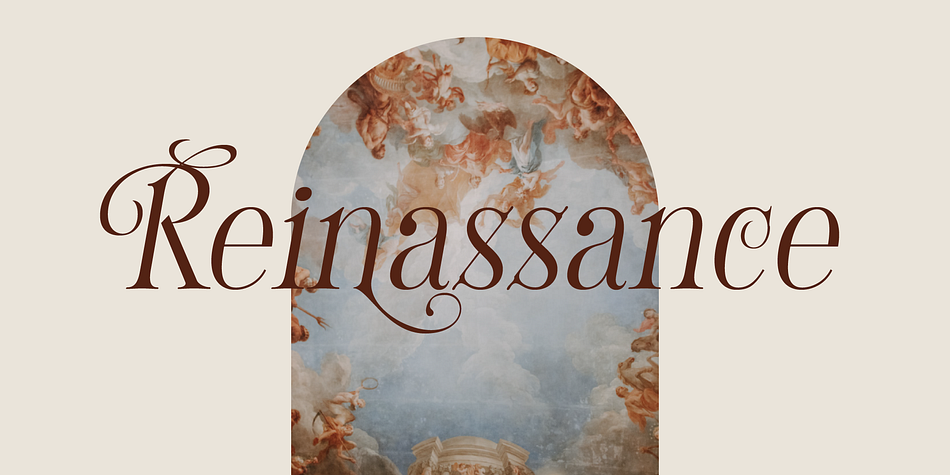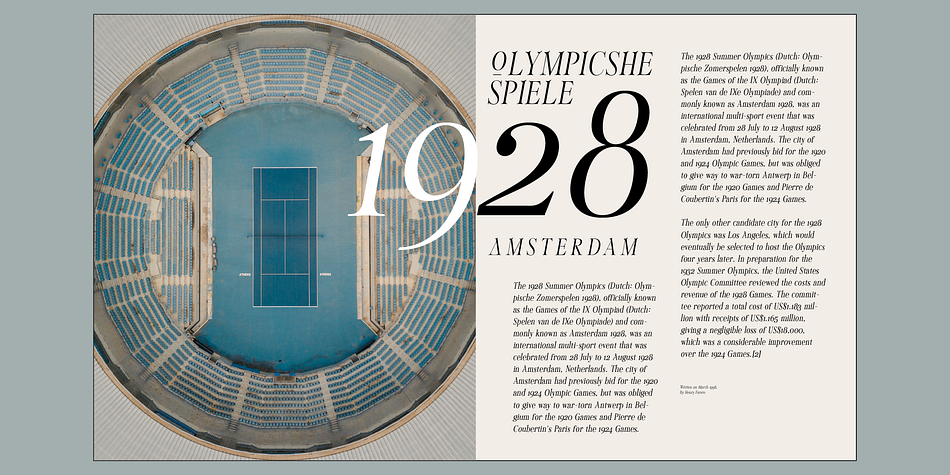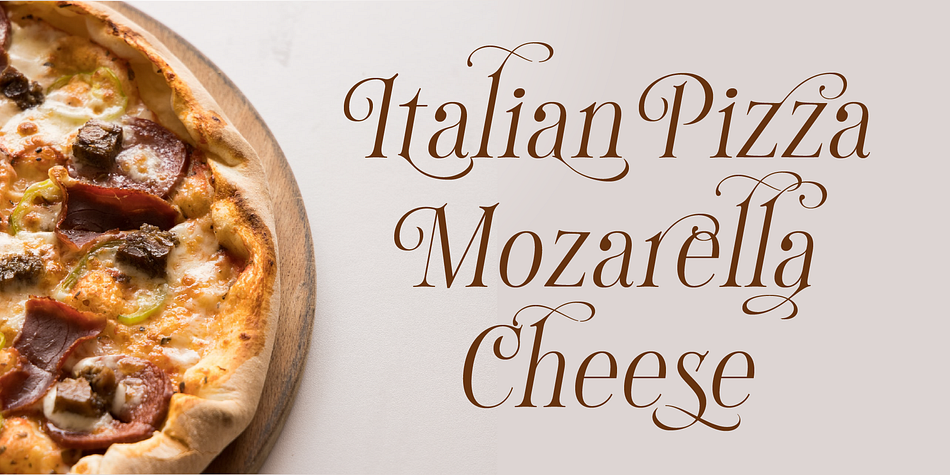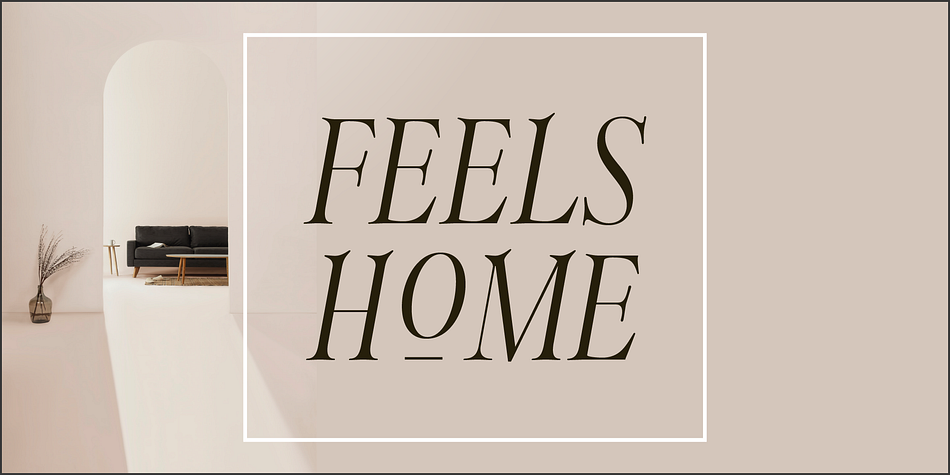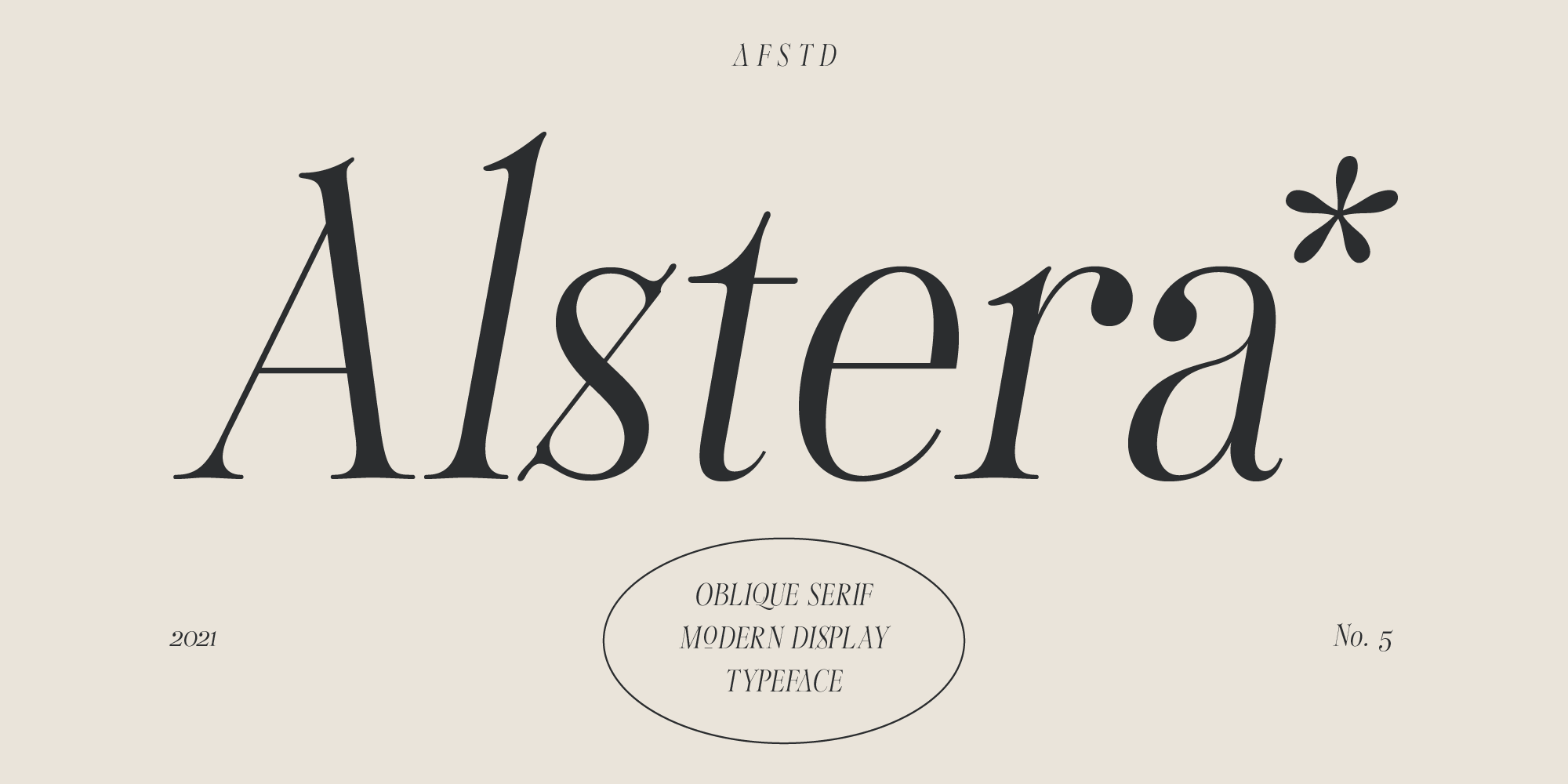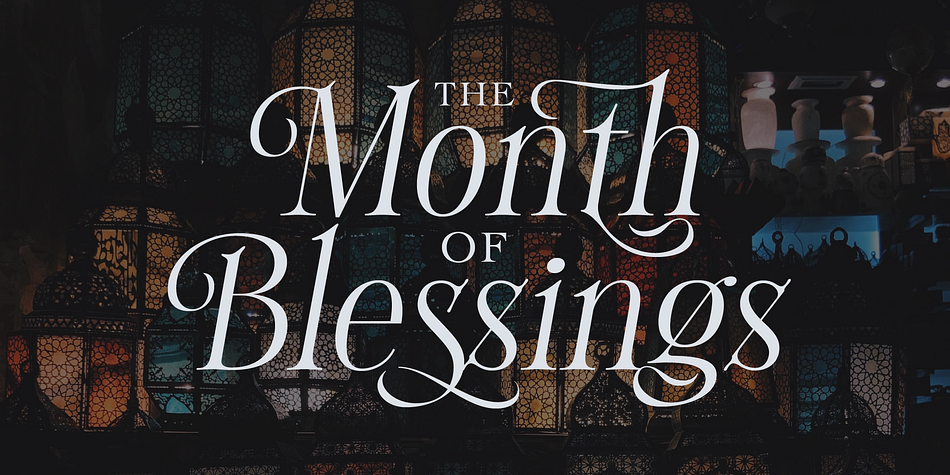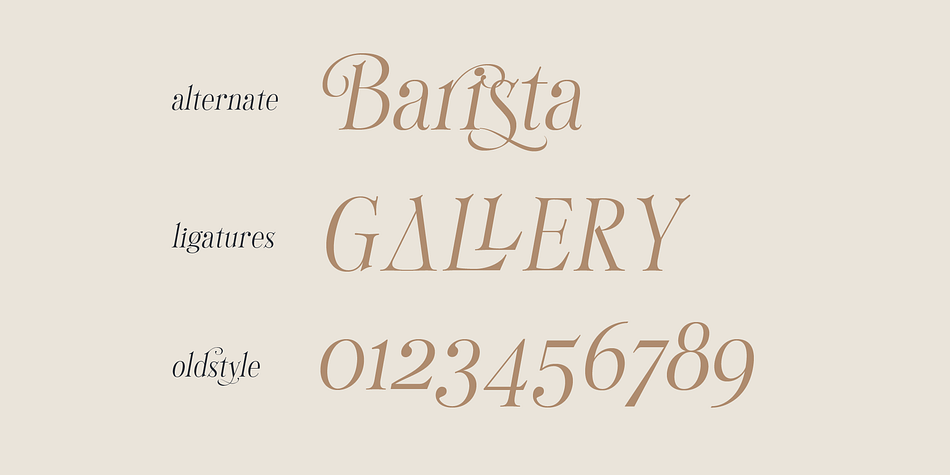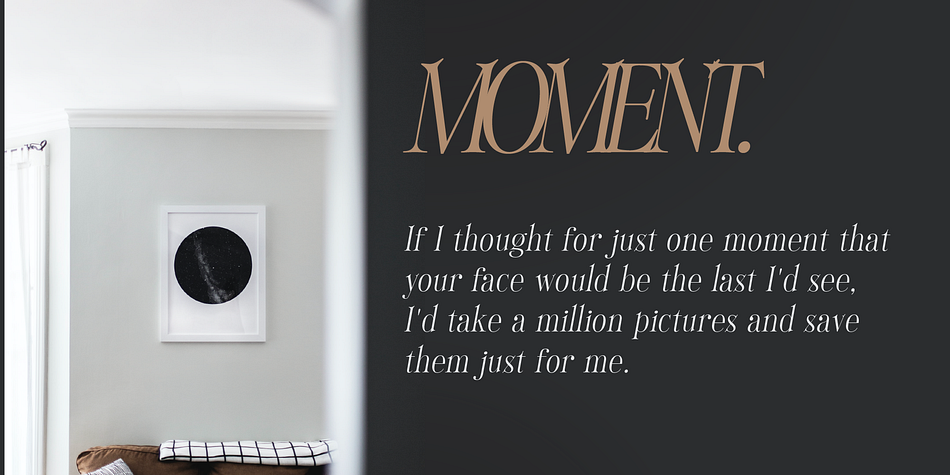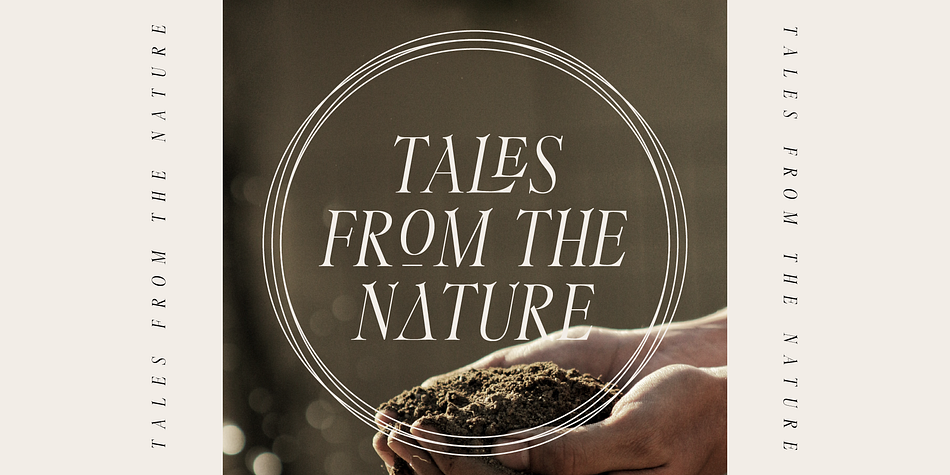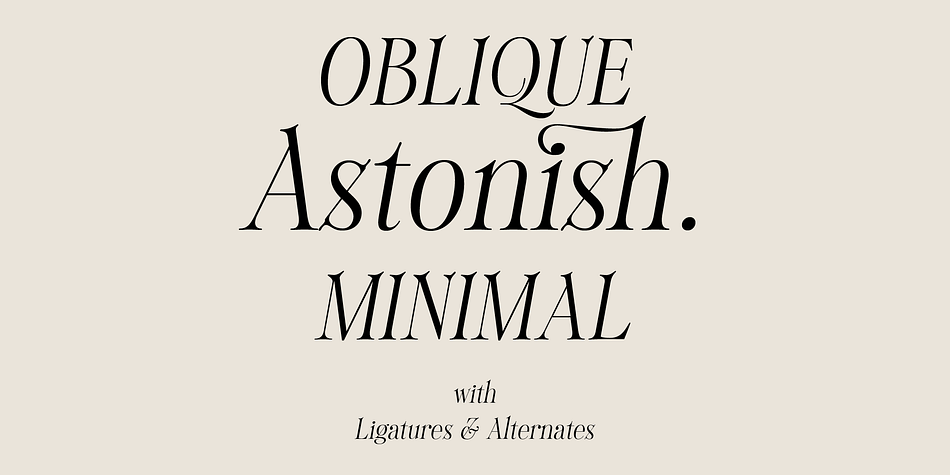
Alstera
Alstera is a serif font family published by AF Studio.
Alstera is an Oblique Serif Modern Display Type. Inspired by a luxurious & elegant brand that use minimalist design language. Alstera created in a simplicity, a minimalist, luxury and also looks elegant. Designed for a Display fonts that perfectly fits for Headlines, Logo, Branding, Packaging, T-shirt, or any design with a stand out or big typography.
Alstera Comes with an option for alternate characters Uppercase and Lowercase. It’s great when use for Title Case or Sentence Case. Ligatures are also available on the capital combination letters.